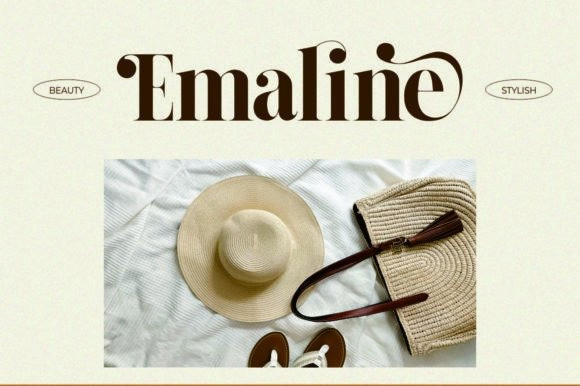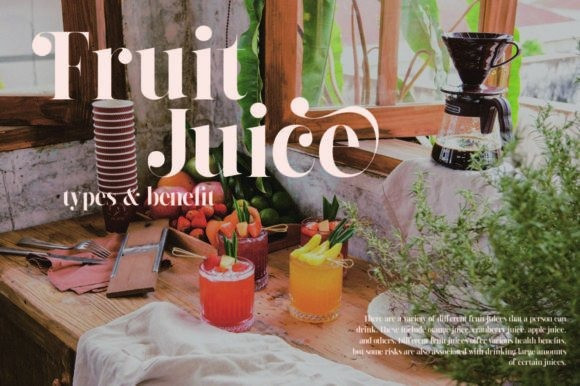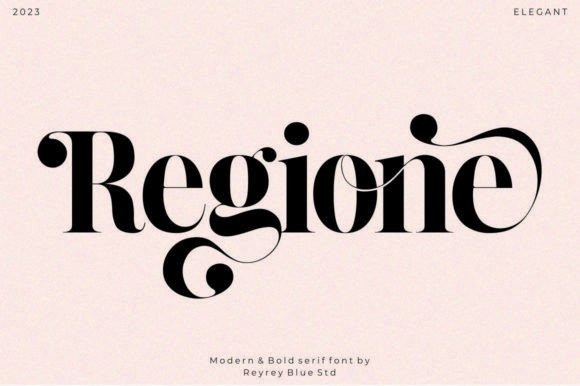
Regione Font
Regione Font, a modern typeface that embodies timeless elegance and aesthetic appeal. RegioneTypeface accentuates uniqueness with a variety of stylish alternatives. Enhance your creative projects with the font’s extensive collection of standard and discretionary ligatures, allowing you to add a touch of finesse to your text.
Regione Font is perfectly suitable for a layout design for quotes or body copy, best used as a display for headings, logos, branding, magazines, product packaging, invitations: logotypes, and much more.